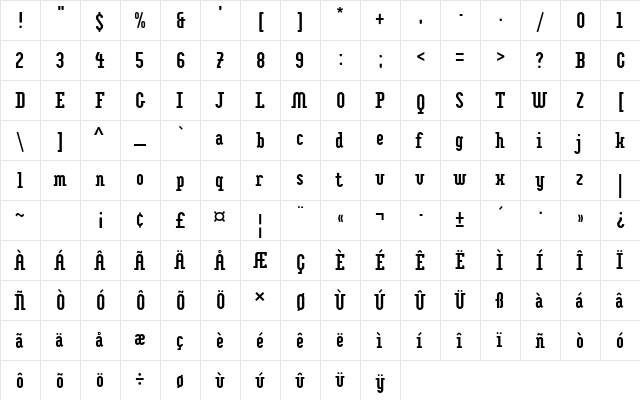
Impakt Std Regular
| Designer | Leonard Currie |
Design Context for Impakt Std Typeface
Impakt Std is a composed and adaptable typeface that performs quietly and consistently across a wide range of design contexts.